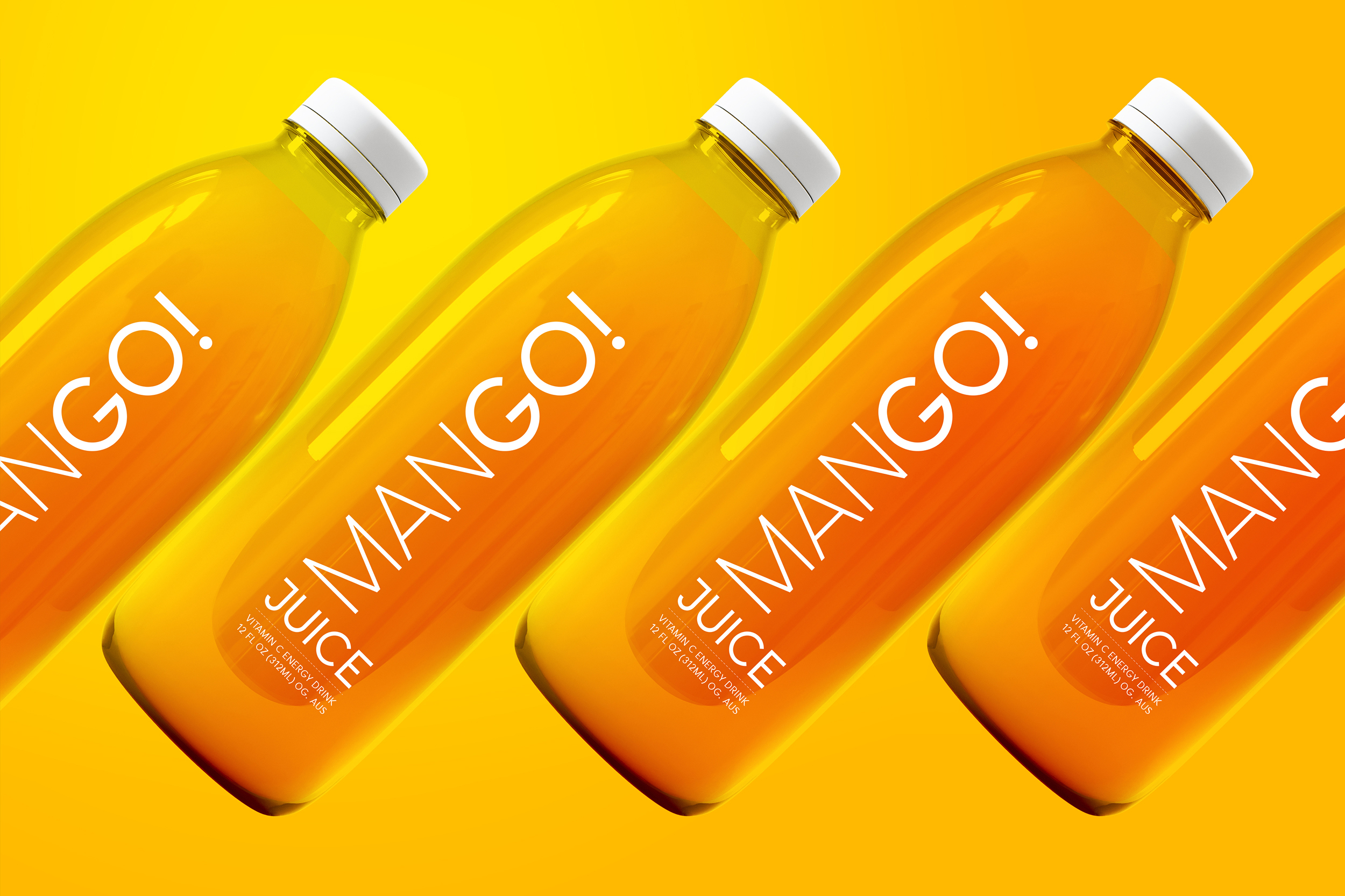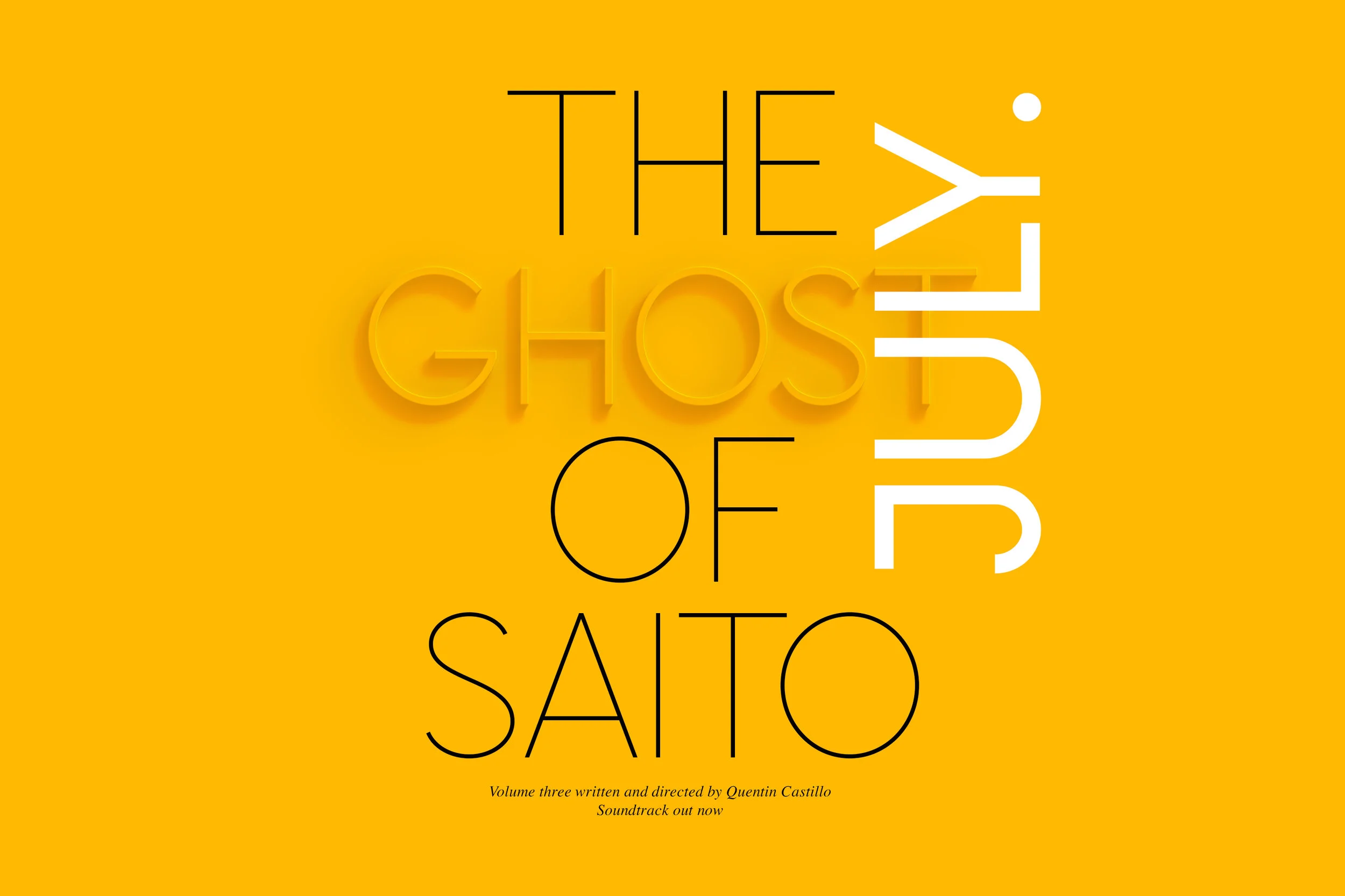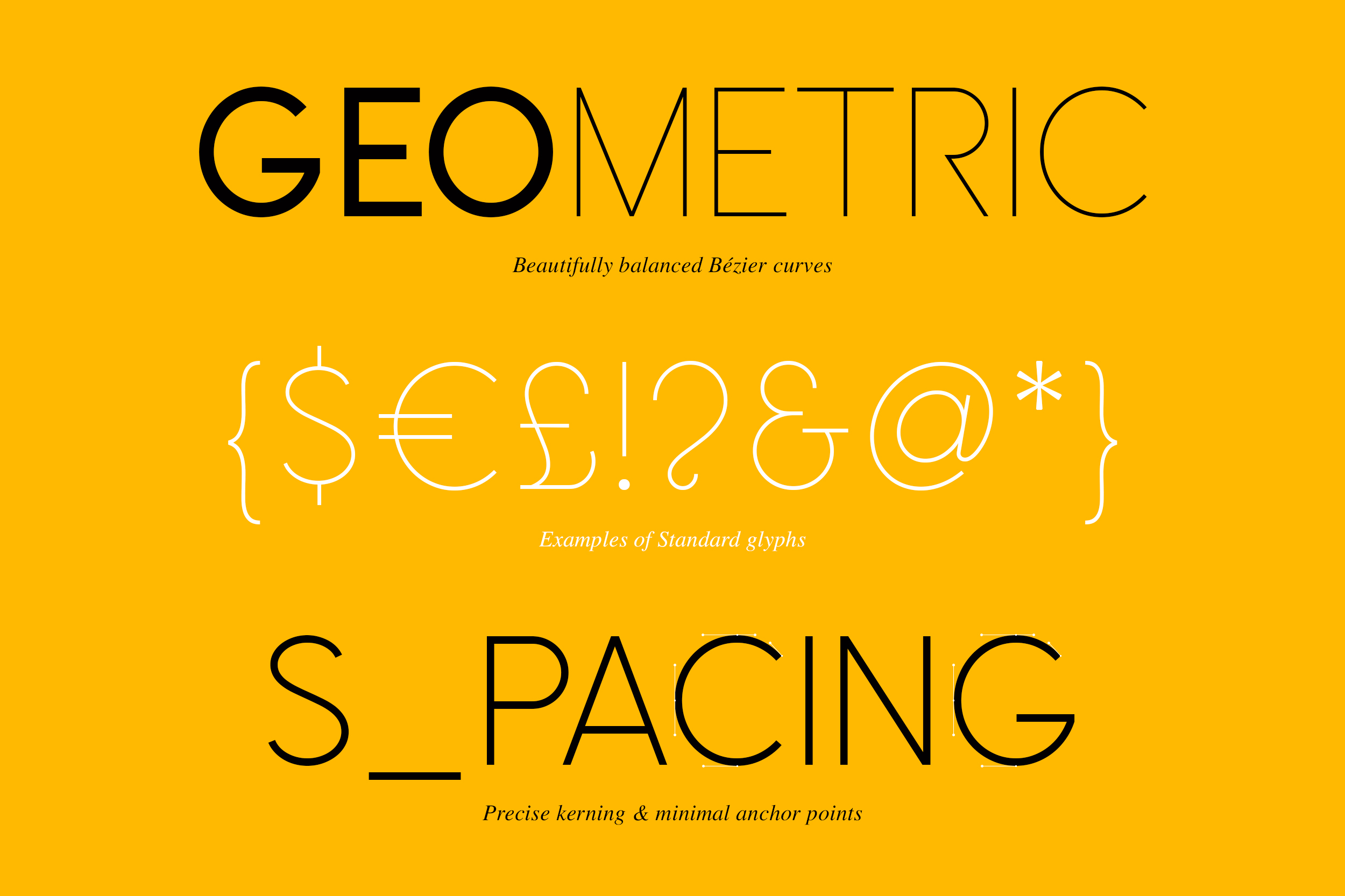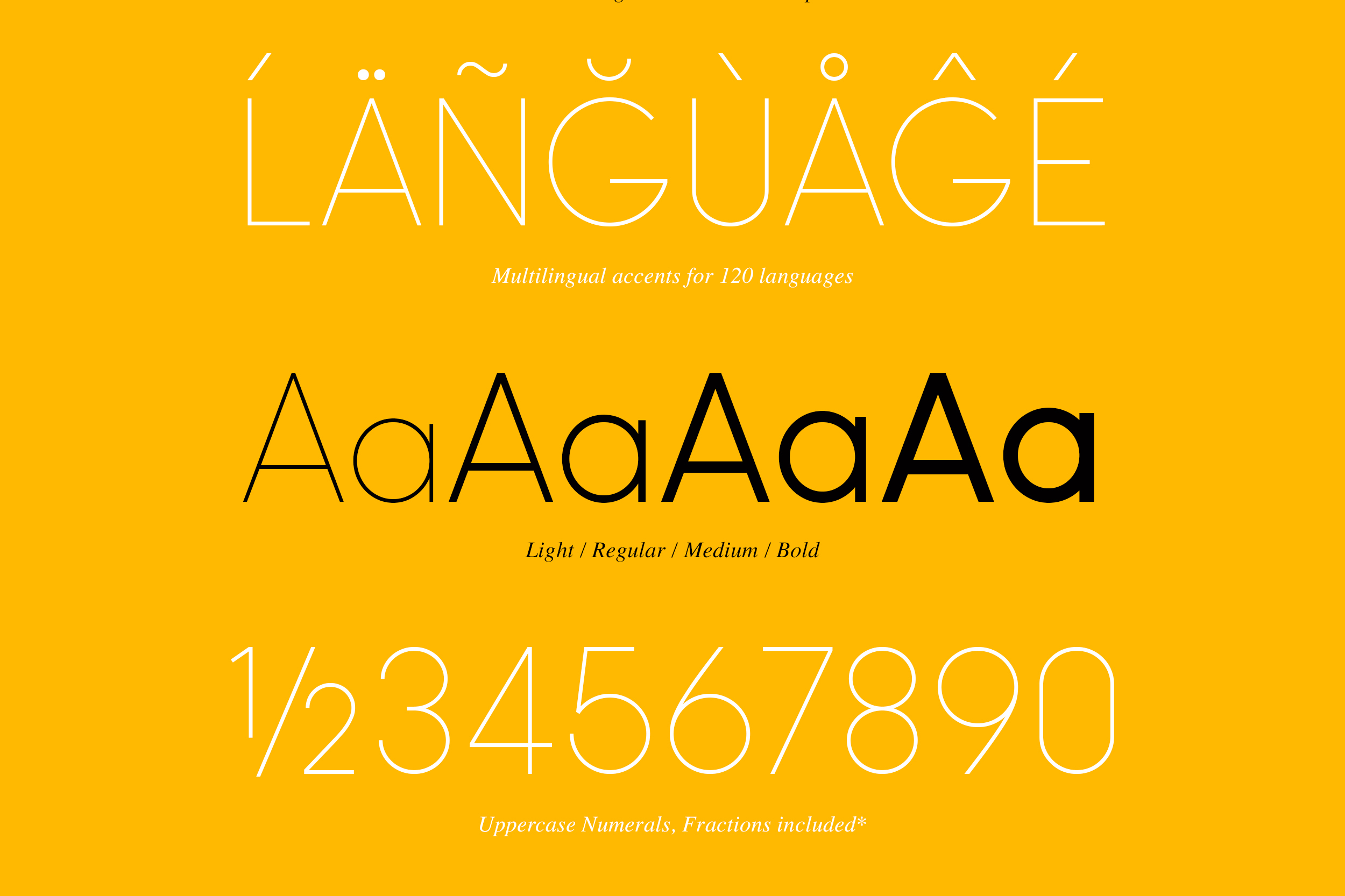
OMEGA SANS | FONT FAMILY
Omega Sans is a Classic Sans-Serif Font Family (4 Weights), which is just as versatile when applied to Sub-Headings and/or Text. Housing minimal anchor points and well-balanced Beziér curves, aesthetics contain sharper geometrics, than basic sans serifs. Multilingual support for 120 latin-based languages is also included.